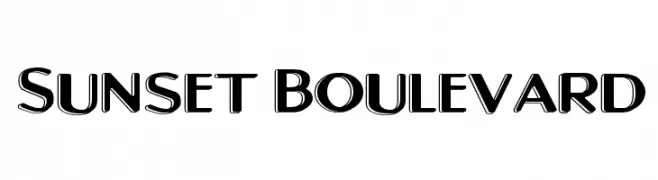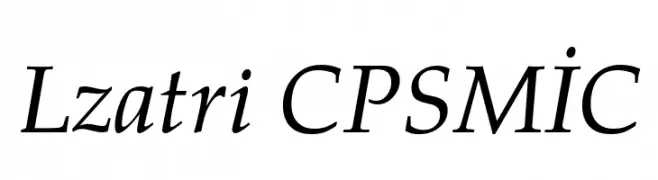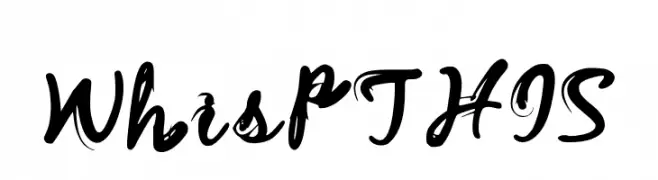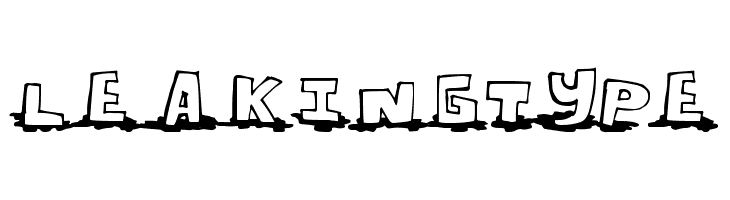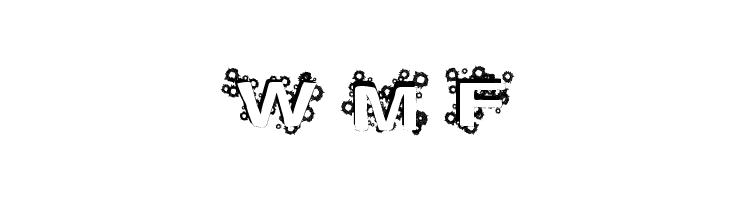
Whimsical hand-drawn font with unique alien and monster illustrations.
A bold, italicized font with moderate contrast and a modern yet classic style.
A bold, three-dimensional font with a vintage, retro flair.
A playful, bold font with a shadow effect and cartoon-like style.
A bold, brush-style script font with dynamic, sweeping strokes.
A bold, distressed font ideal for spooky, horror-themed designs.